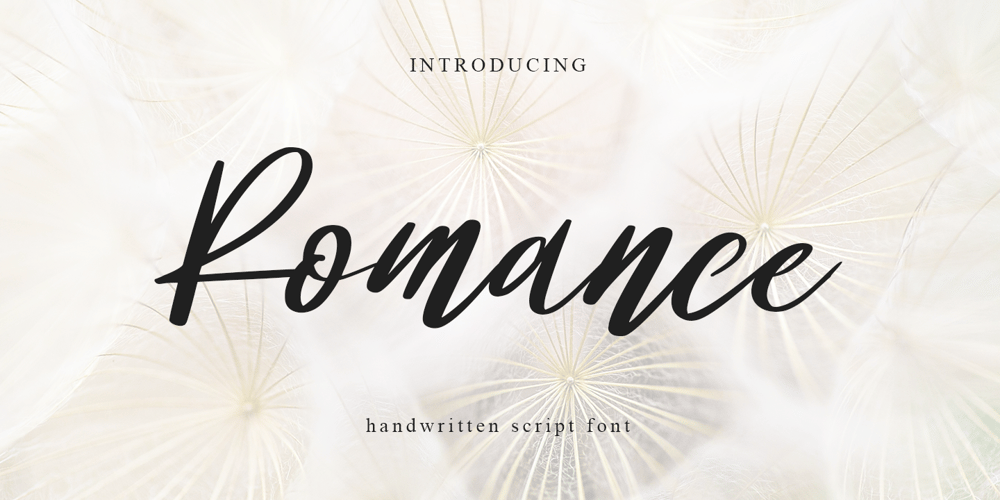
Romance Script Font Family was designed by Andri Kurniawan and published by Struggle Studio. Romance Script contains 1 styles and family package options. Romance is a natural handwritten font, this font is perfect for logos, invitations, stationery, wedding designs, social media posts, advertisements, product packaging, product designs, labels, photography, watermarks, special events or anything else.